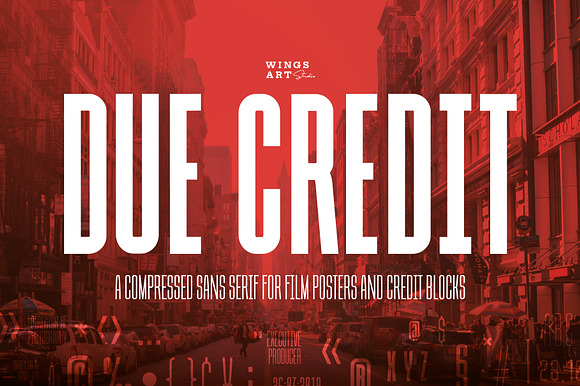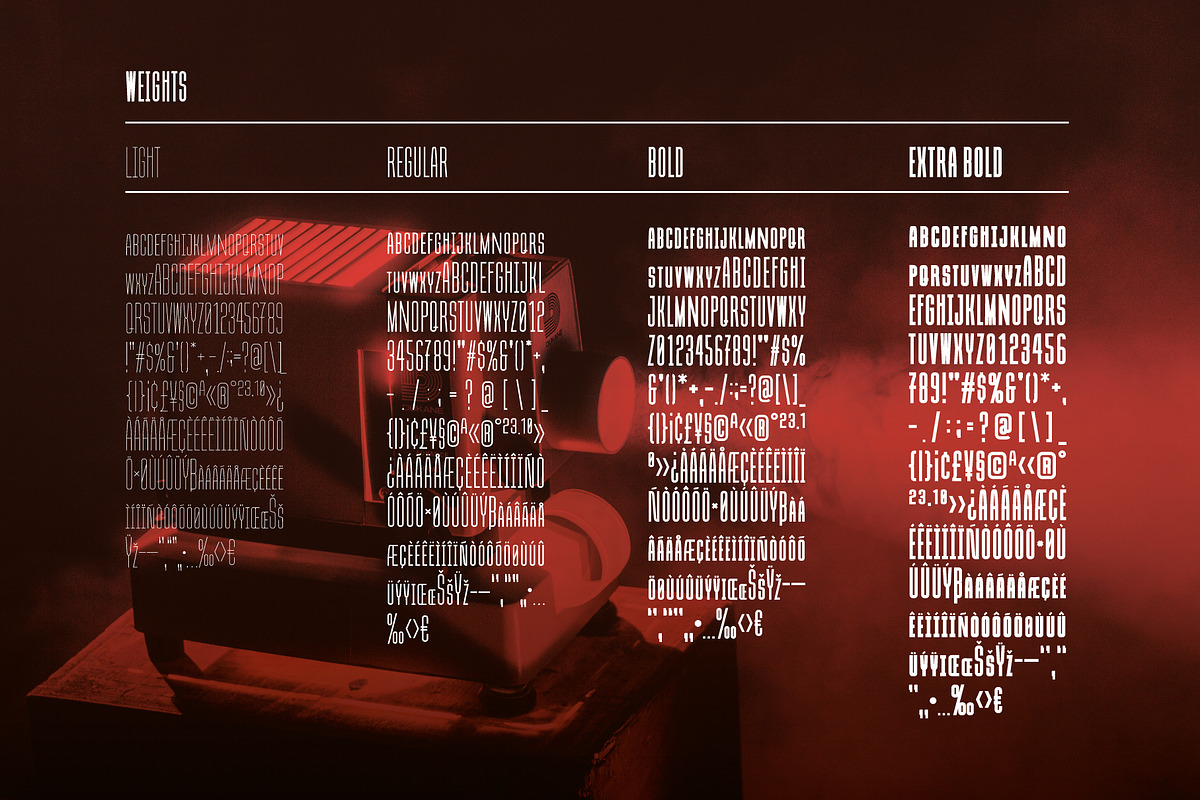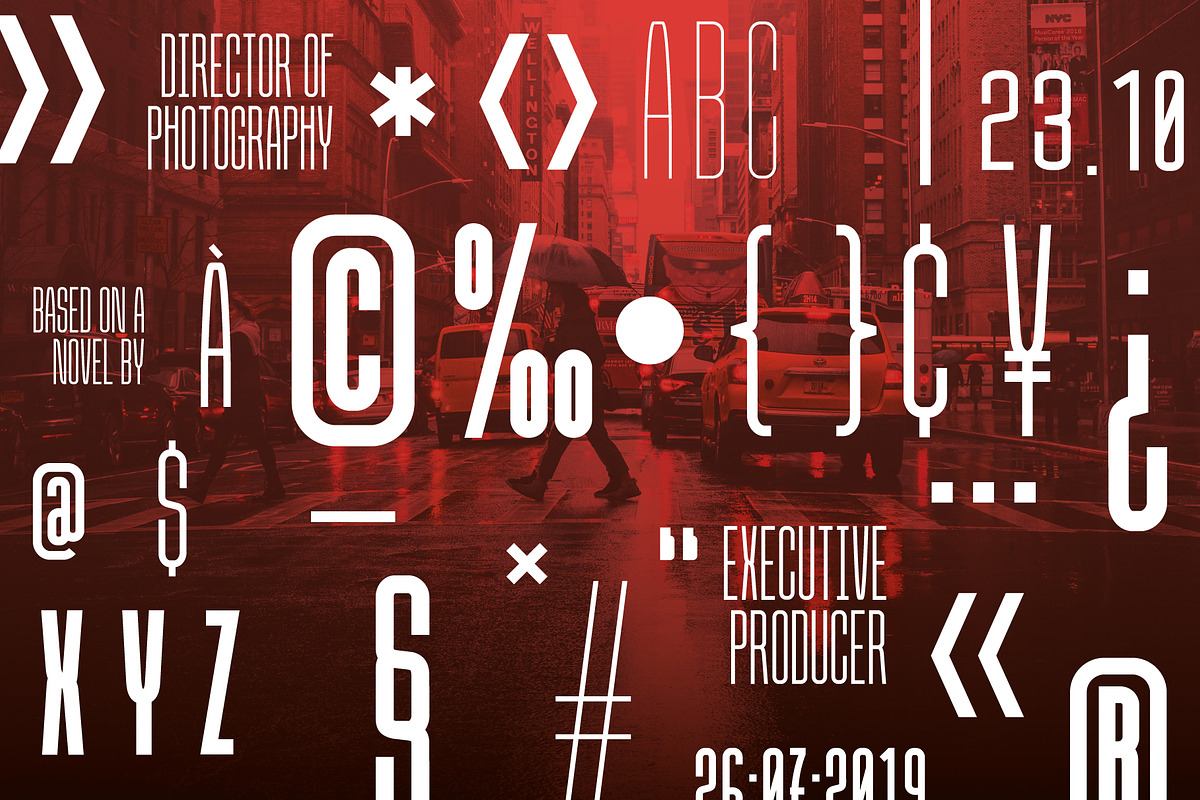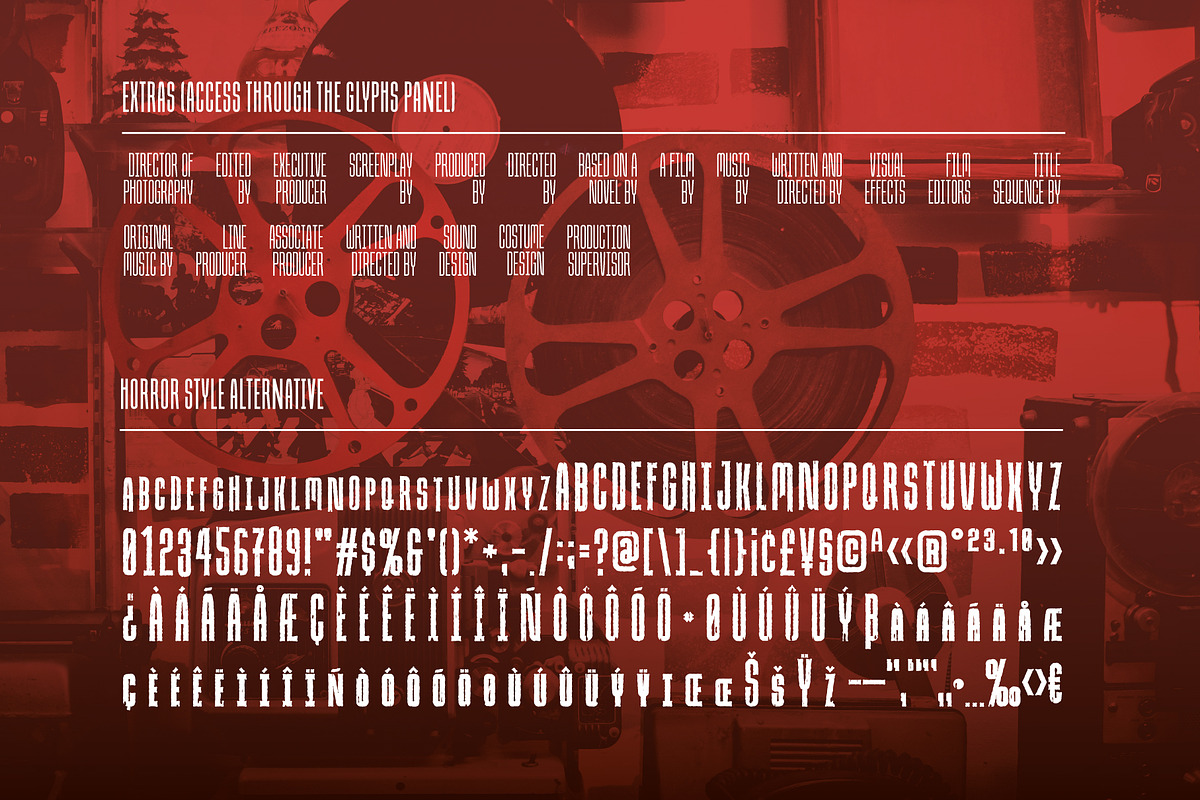
Due Credit: The Film Poster Font
Due Credit - A versatile display font for film marketing, posters, credit blocks and trailers.
Due Credit is a new display font specifically designed for the film and television industry. A versatile typeface that’s suitable for bold headline titles and small credit blocks with an additional horror inspired extra style.